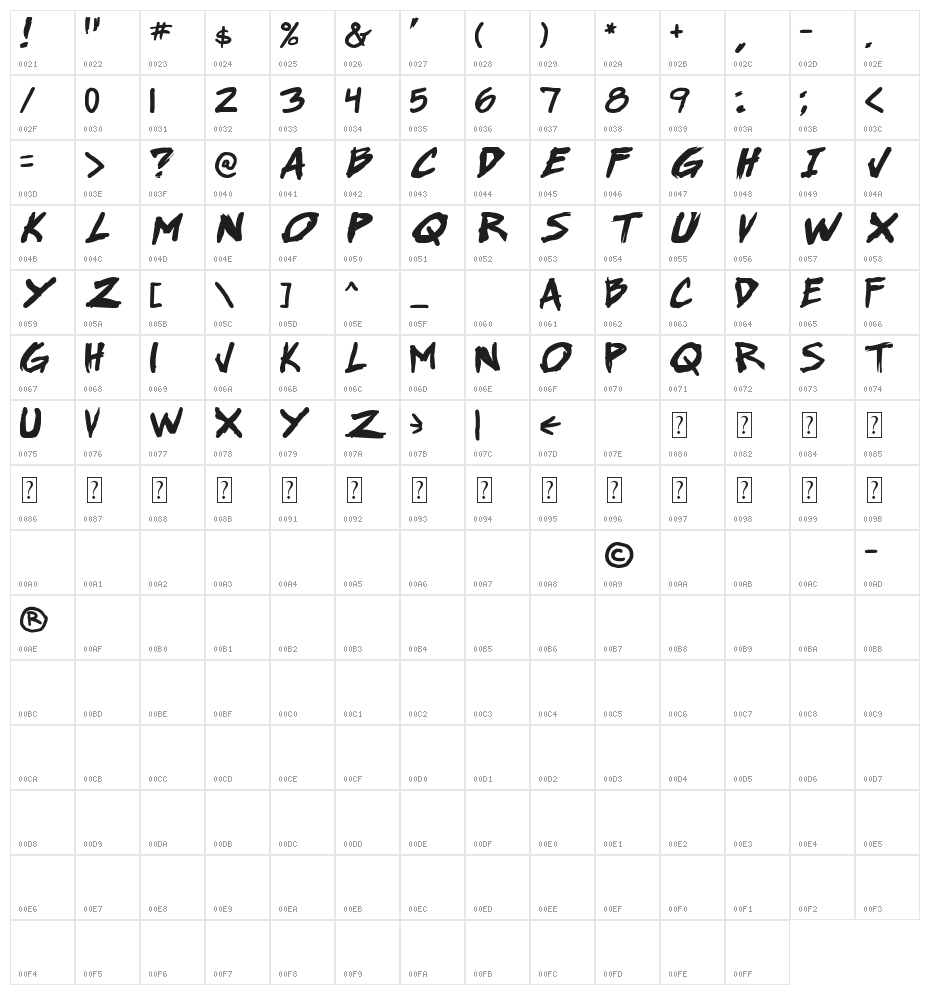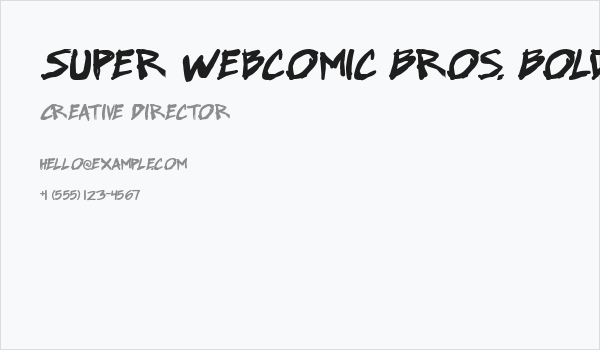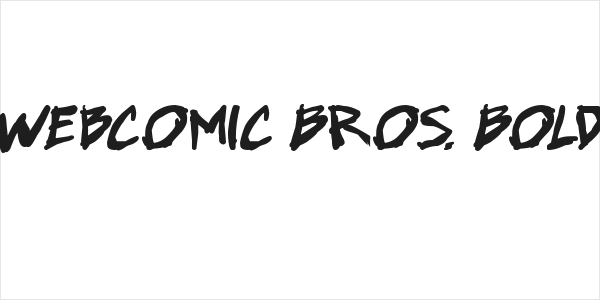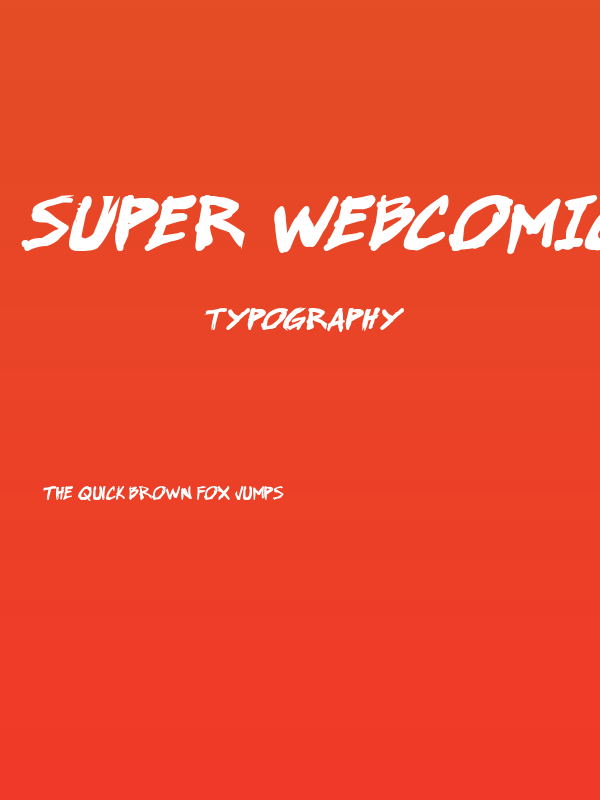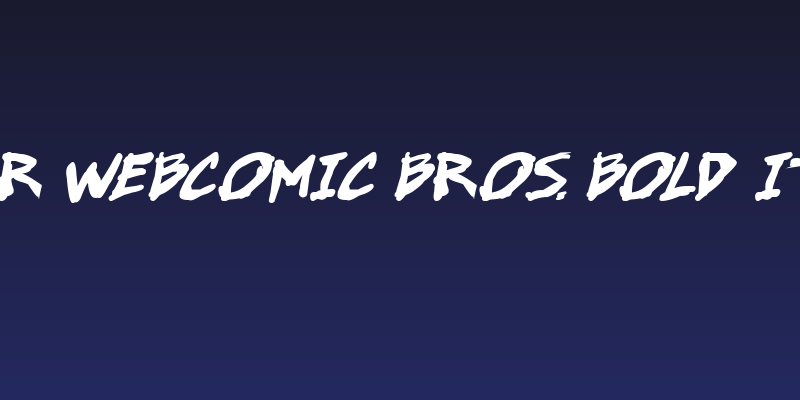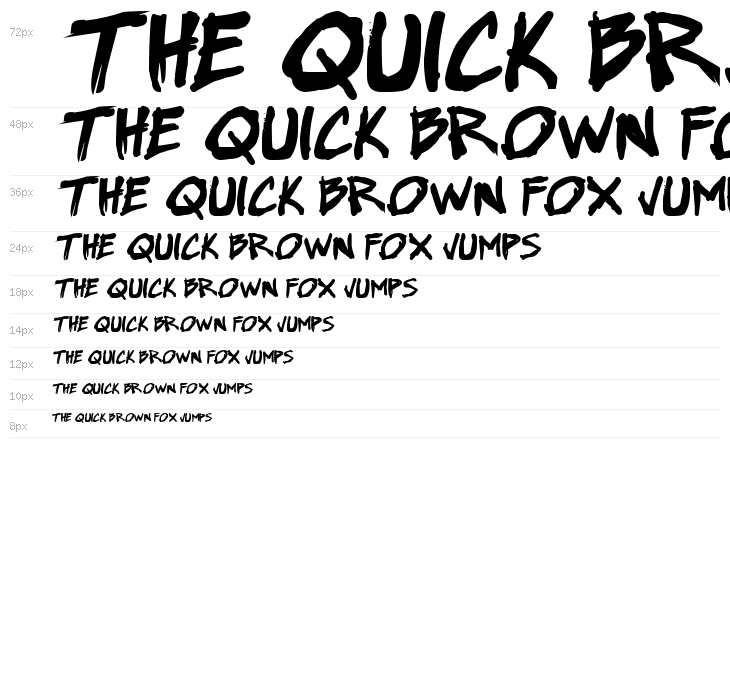
Super Webcomic Bros. Bold Italic Font
Super Webcomic Bros. Bold Italic Description
This font features a bold and dynamic style, characterized by its thick, brush-like strokes and energetic slant. The letters are crafted with a sense of movement, giving them a lively and expressive appearance. The uppercase and lowercase letters maintain a consistent style, with a slightly irregular and hand-drawn feel that adds to its charm. The numbers and special characters follow the same bold and italicized design, ensuring a cohesive look across all elements. This font exudes a playful and adventurous vibe, making it ideal for projects that require a touch of excitement and creativity.
| Proposed Projects | Comic books, video game titles, posters, and any creative projects needing a bold, energetic font. |